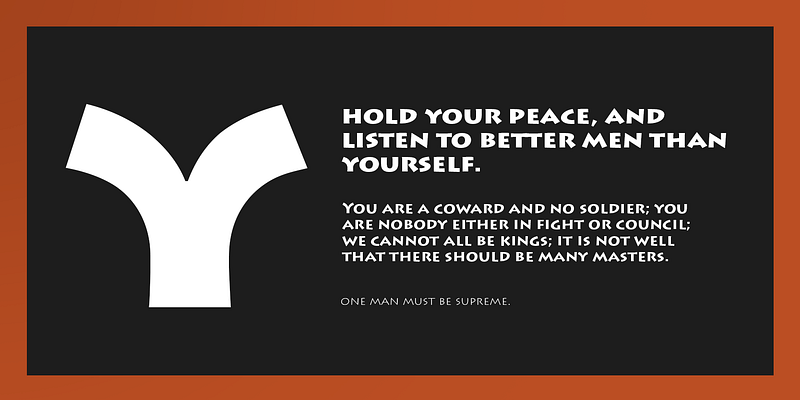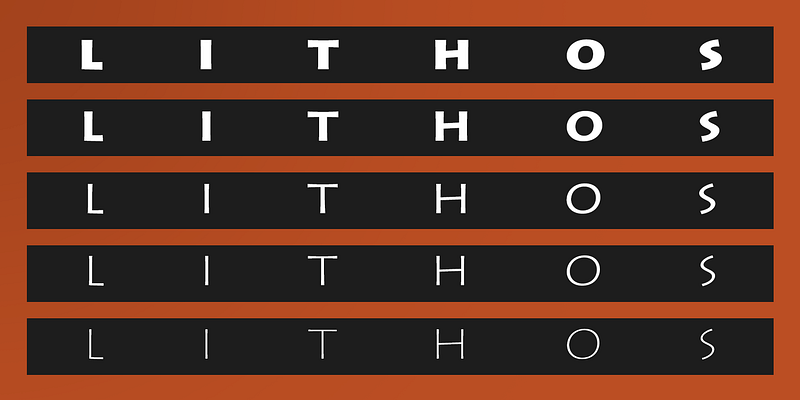
Inscriptions honoring public figures or dedicating temples were intended for public viewing in ancient Greece. Geometric letterforms, free of adornment, were chiseled into the stone. These very basic shapes are the inspiration for Lithos Pro, an Adobe Originals typeface designed by Carol Twombly. This flexible design combines simplified character shapes with a playful asymmetric quality that works well for a large variety of display jobs. The original Lithos design has been extremely popular since its 1989 release. To meet user demand, Lithos Pro, released in 2000, adds true Greek language support, plus small caps and small figures.